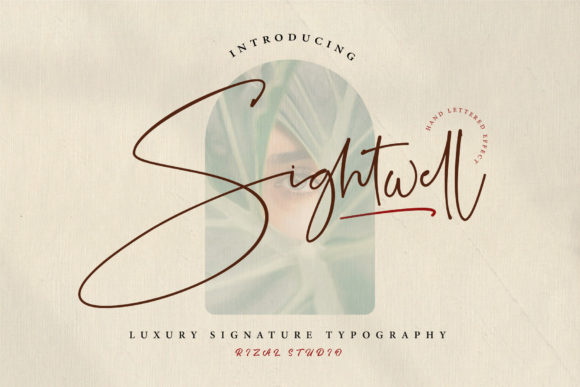
Introducing Sightwell Signature, the ultimate script font that exudes sophistication and elegance. This chic font is meticulously crafted to elevate your designs with its enchanting beauty and remarkable versatility.
With Sightwell Signature, you can effortlessly create knockout designs that captivate and inspire. Its stylish alternates and ligatures add a touch of charm and uniqueness to your projects. Whether you're designing logos, invitations, branding materials, or social media posts, Sightwell Signature will make your words shine.
This remarkable font is PUA encoded, ensuring effortless access to all its glyphs and swashes. Unleash your creativity and explore a world of possibilities with Sightwell Signature.